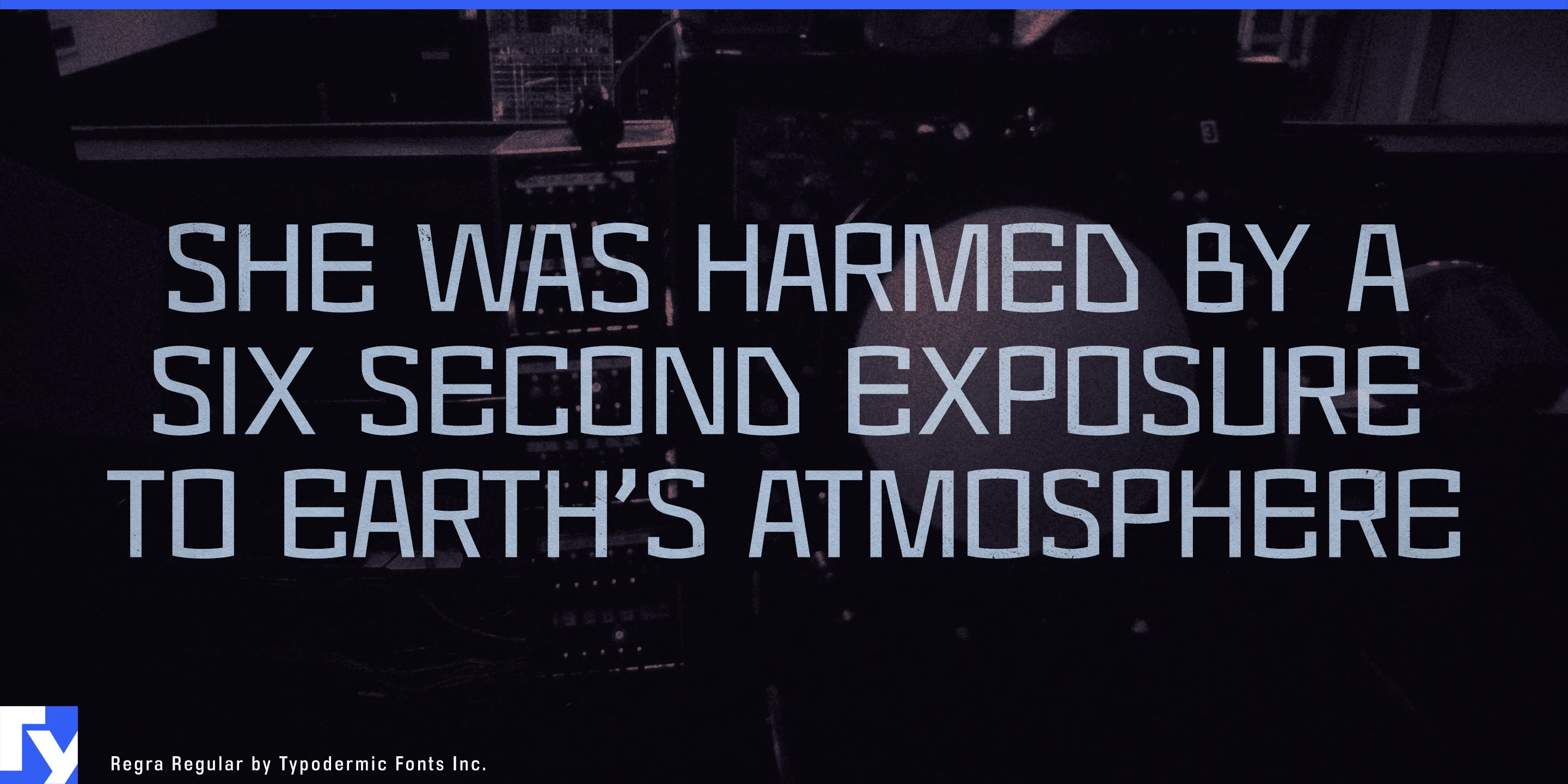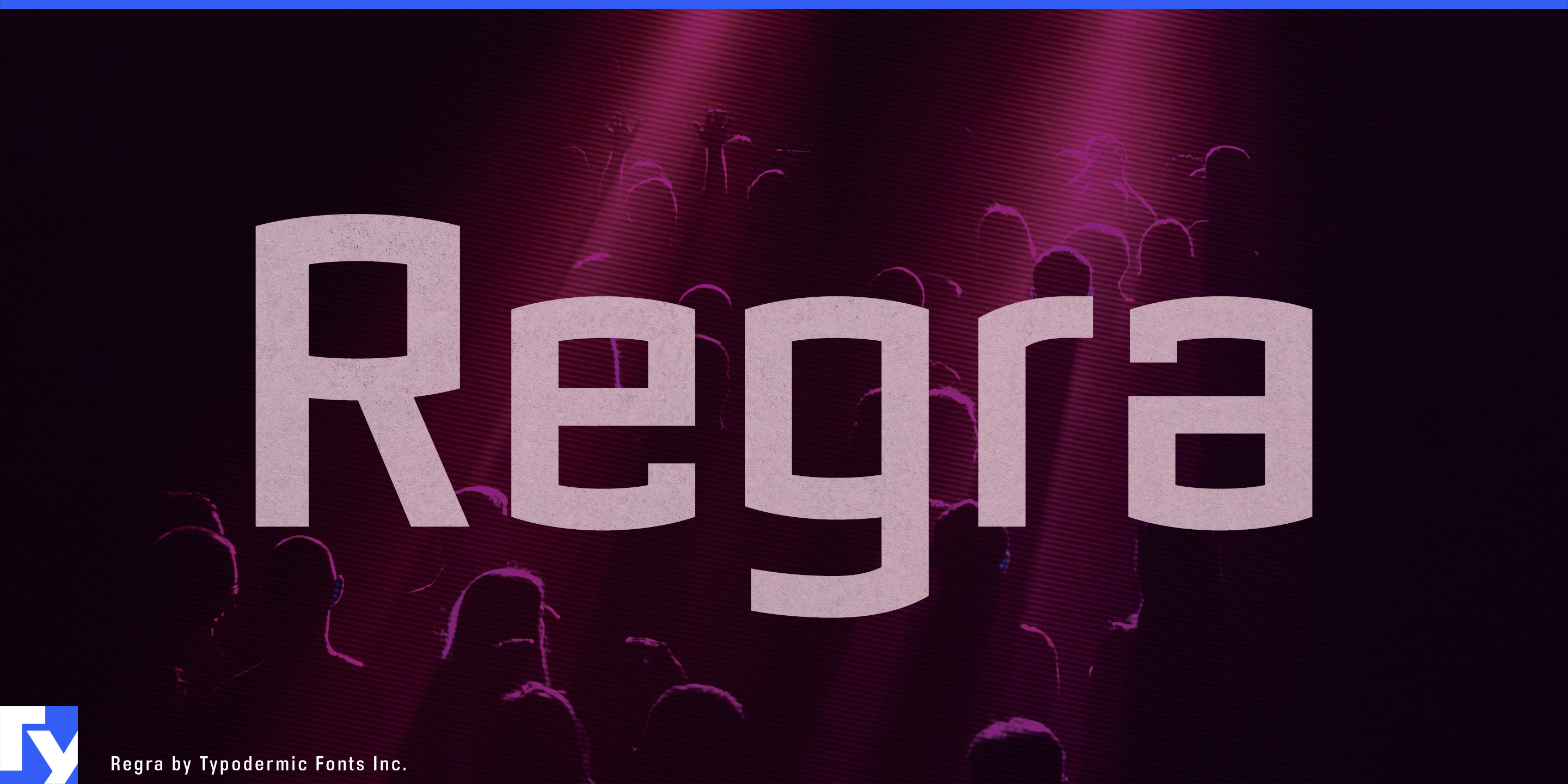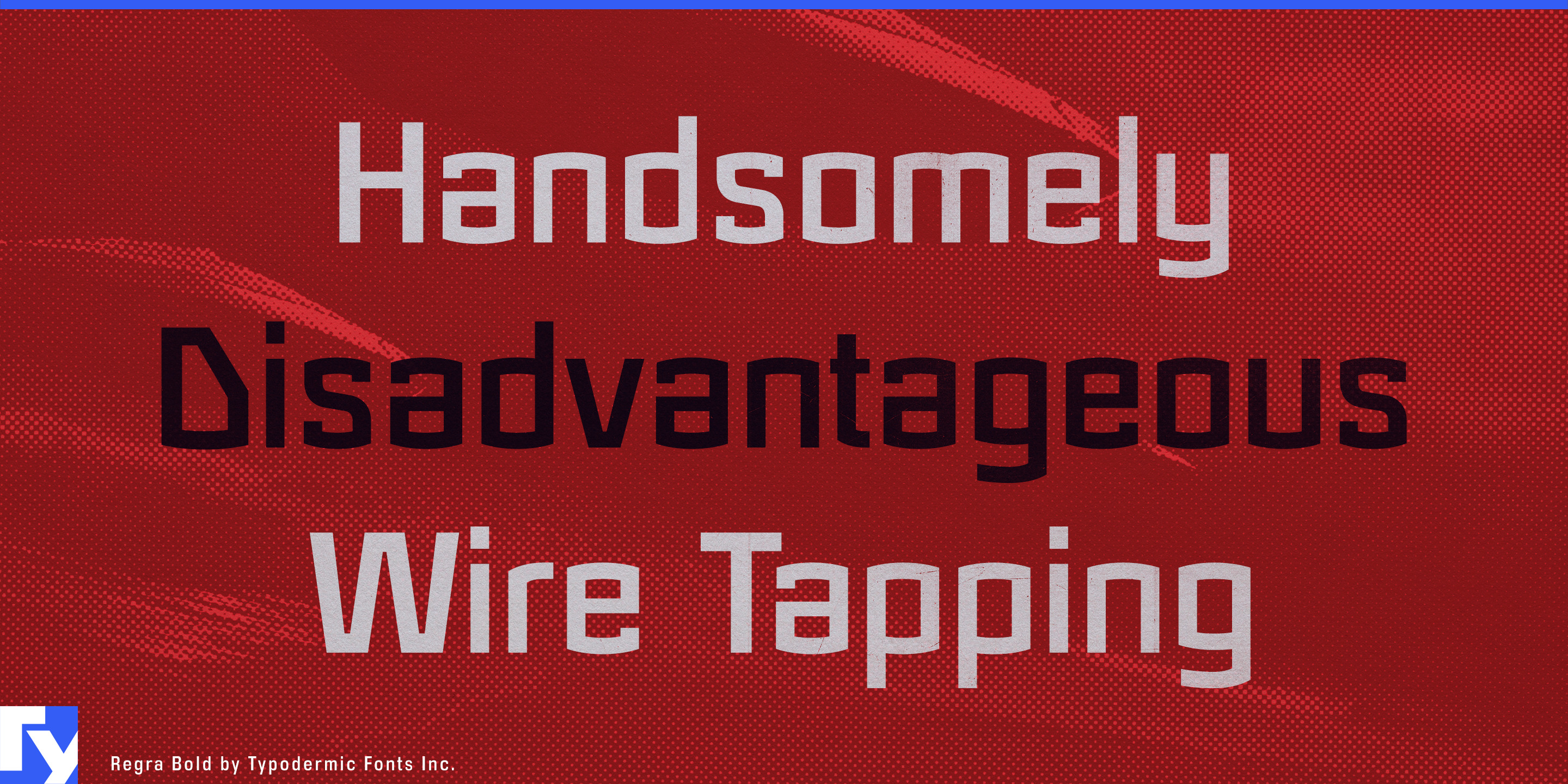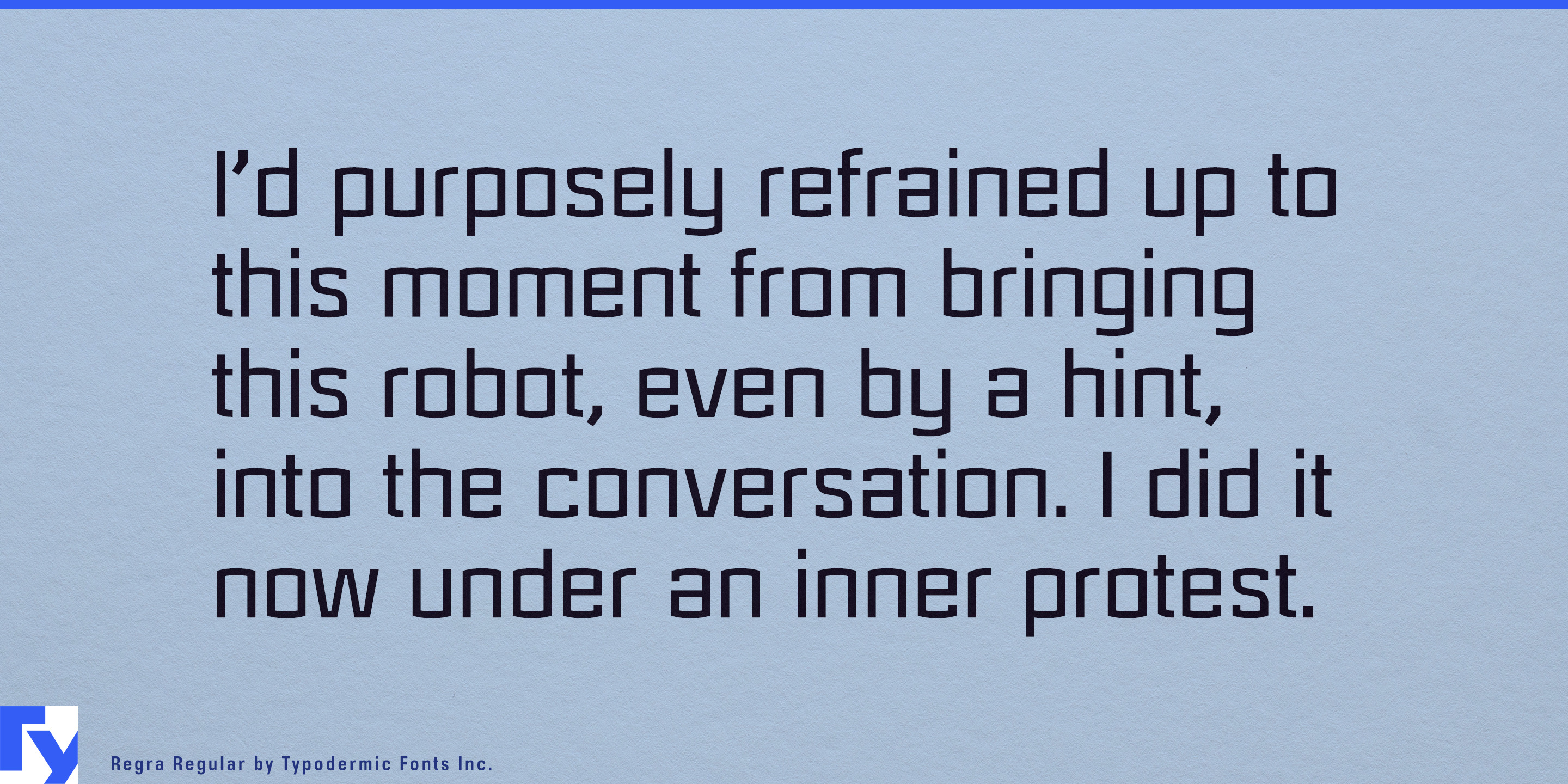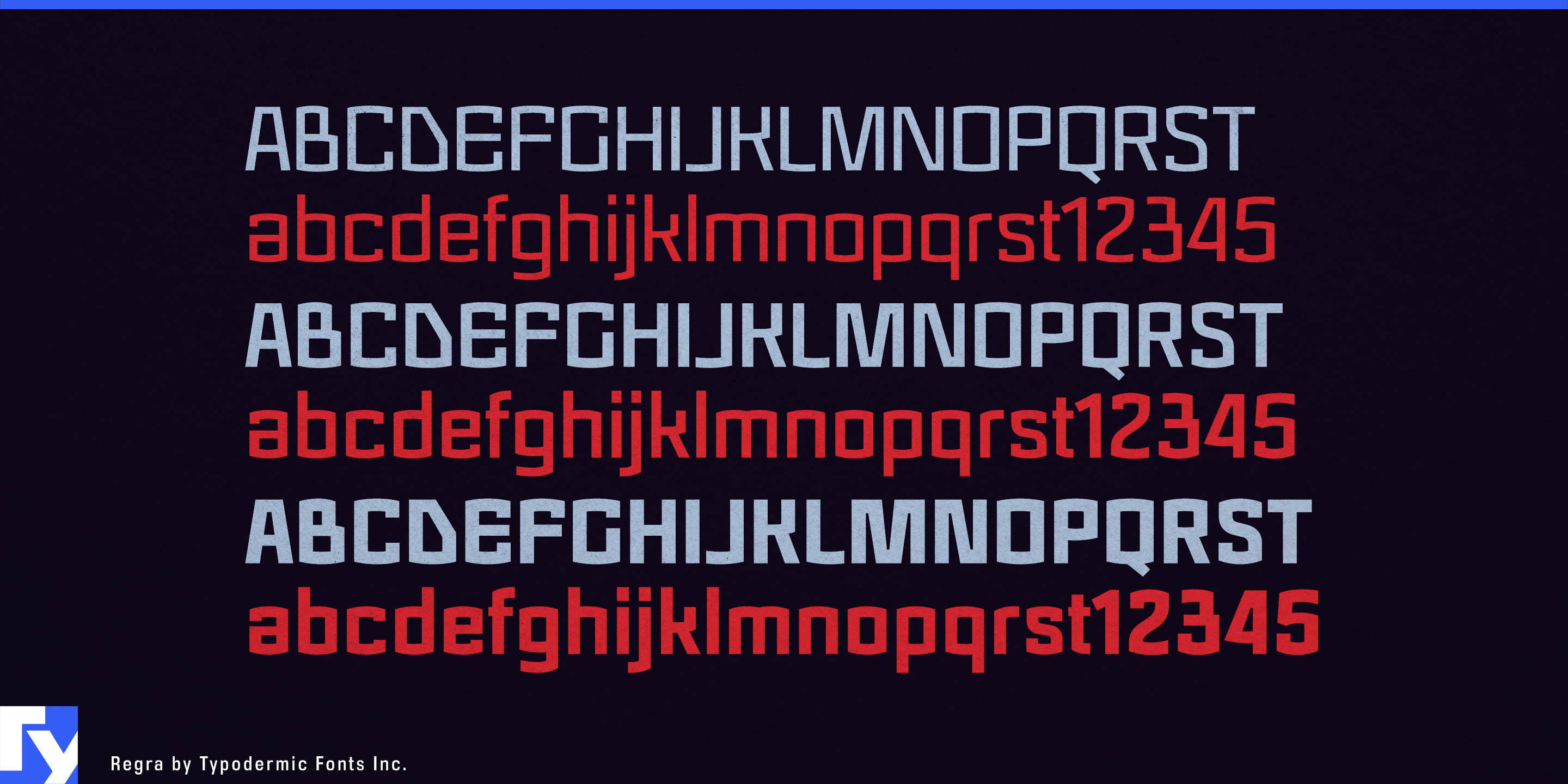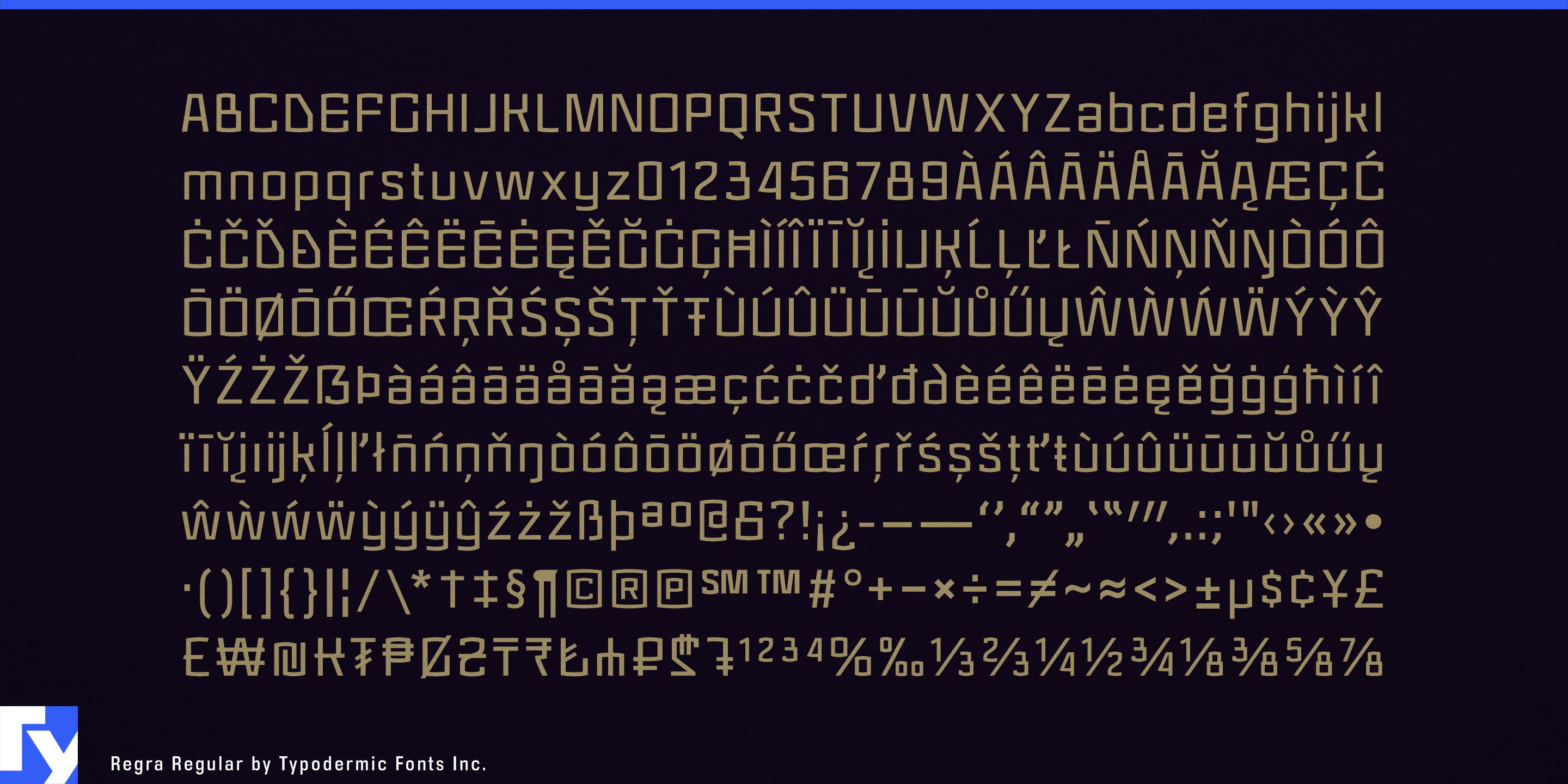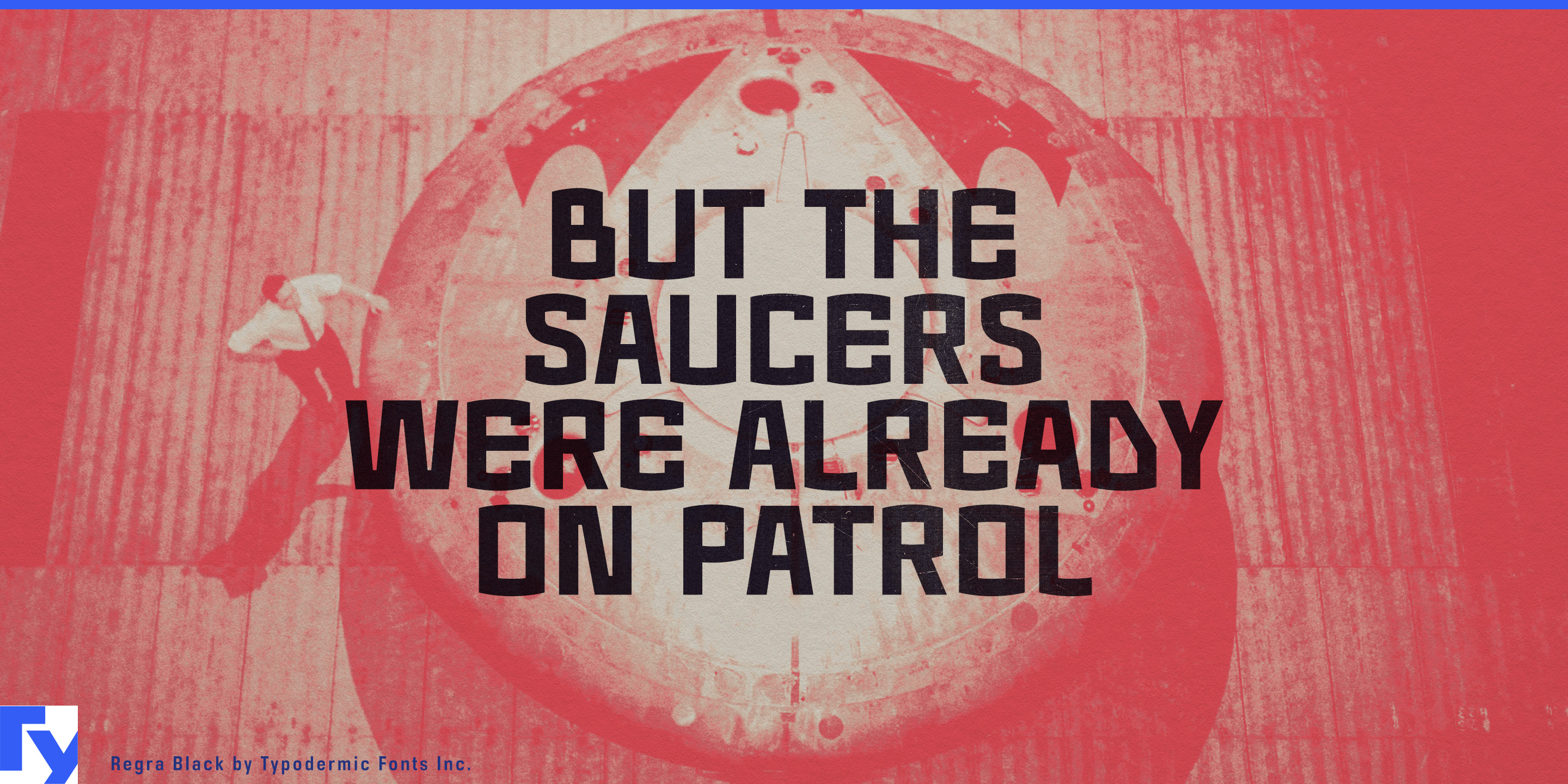
Regra
A lot of contemporary technology has become typographically softer than the objects it lives on. Rounded sans-serifs may suit touch interfaces and friendly apps, but they can feel disconnected from appliances built from flat panels, hard corners, dark glass and sharply divided controls. Regra is typography for technology with corners.
Its wide, angular construction echoes the geometry of manufactured enclosures rather than trying to soften it. Straight runs, squared forms and abrupt changes of direction give Regra the same visual vocabulary as sheet metal, black-glass panels, vents, doors and control surfaces. Regular, Bold and Black weights with matching italics provide range for product-family names, model designations and campaign typography.
Microwave ovens, combination ovens, induction ranges, extractor hoods, refrigerators and built-in cooking systems are especially natural settings. These appliances often consist of large rectangles divided into smaller ones: doors, displays, handles and control zones. Regra can carry series names, launch headlines, retail displays and packaging in typography that feels designed alongside the appliance rather than added afterward.
Front-loading washers, dryers, dishwashers, dehumidifiers and air-treatment systems present the same physical language. Heat pumps, ventilation equipment, water heaters and home-energy controllers extend it into visible building systems where product-series names and showroom graphics benefit from a harder technical voice.
Professional and prosumer equipment such as rectilinear espresso machines, countertop ovens, commercial induction units and under-counter refrigeration can use Regra without drifting into heavy industrial typography. Desktop PC cases, NAS systems, UPS units, network appliances and external drive arrays offer the same opportunity in computing hardware, where bays, vents and rigid panels already establish the geometric environment.
The italics add movement when a campaign needs a faster layer, while the uprights maintain the connection to rigid enclosure geometry. Regra gives hard-edged products typography that speaks the same language as the object: flat planes, sharp divisions and technology with no reason to round off its corners.